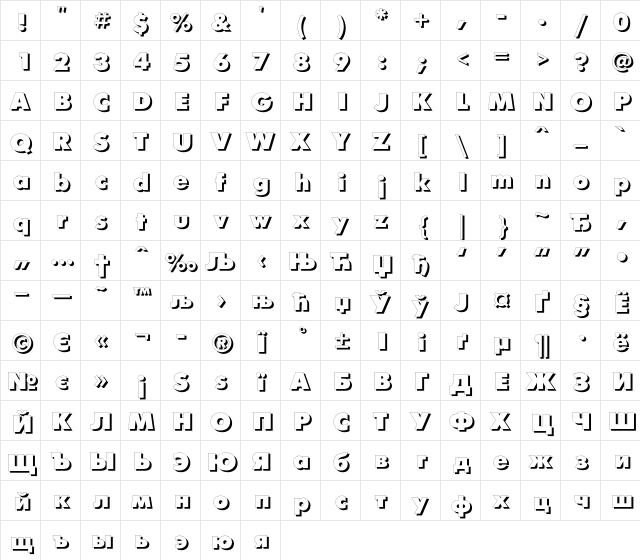
FuturisXShadowC Regular
Design Context for FuturisXShadowC Typeface
FuturisXShadowC channels digital-age aesthetics through its sharp, structured letterforms — ideal for brands that want to signal innovation.